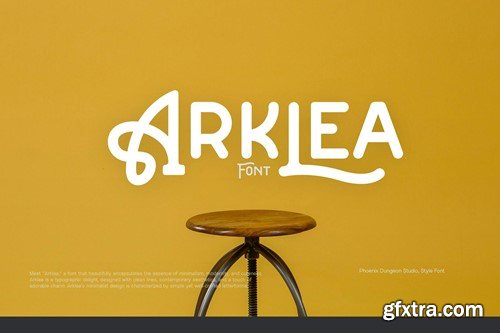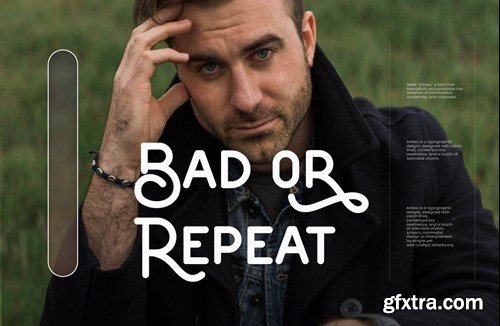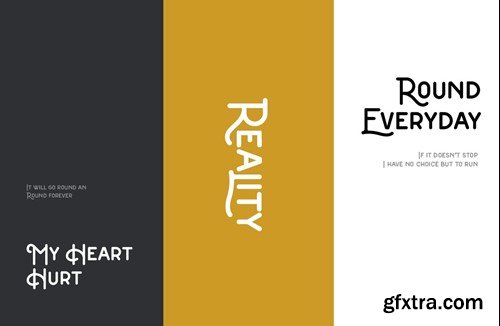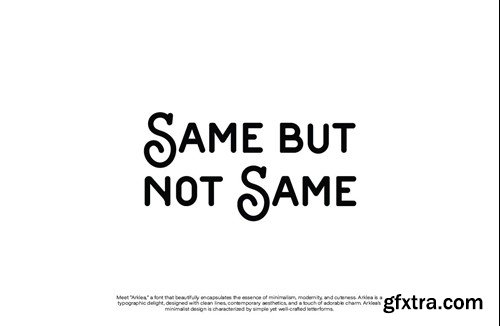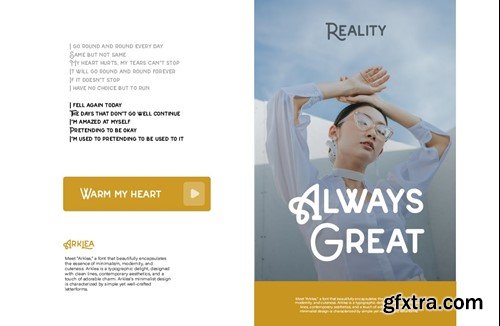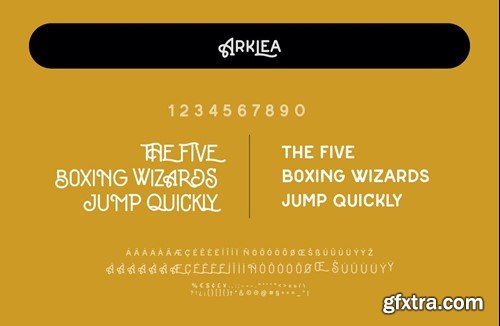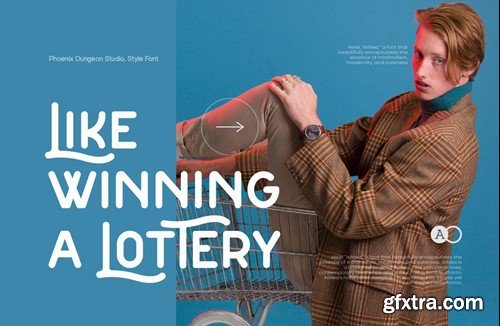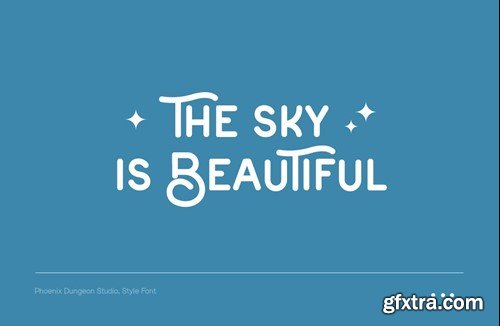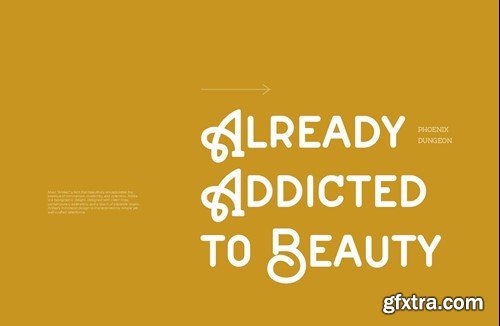
阿克莱亚字体H6ZRAR9
Arklea Font
Meet "Arklea," a font that beautifully encapsulates the essence of minimalism, modernity, and cuteness. Arklea is a typographic delight, designed with clean lines, contemporary aesthetics, and a touch of adorable charm. Arklea's minimalist design is characterized by simple yet well-crafted letterforms. What’s in the package : Thank you